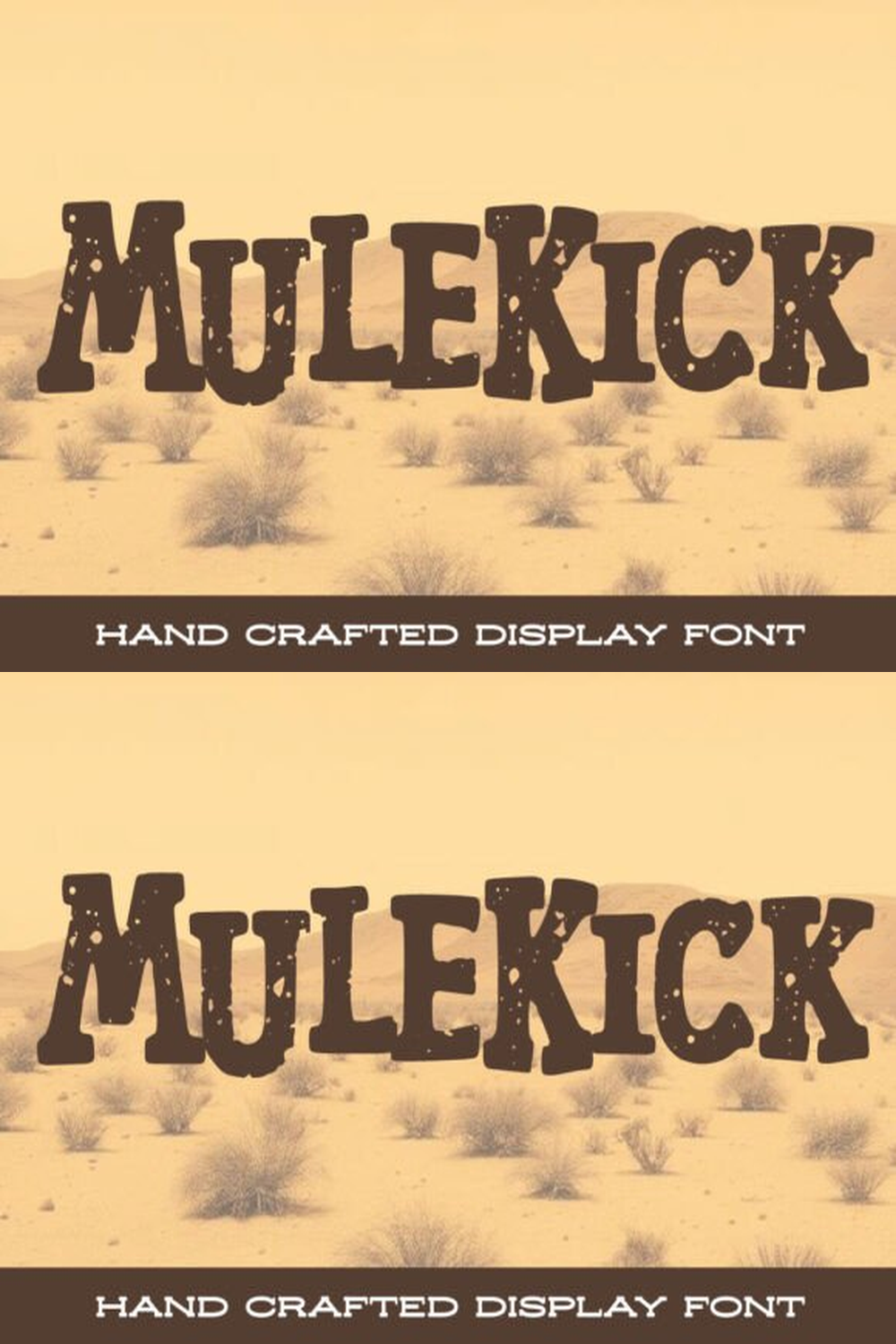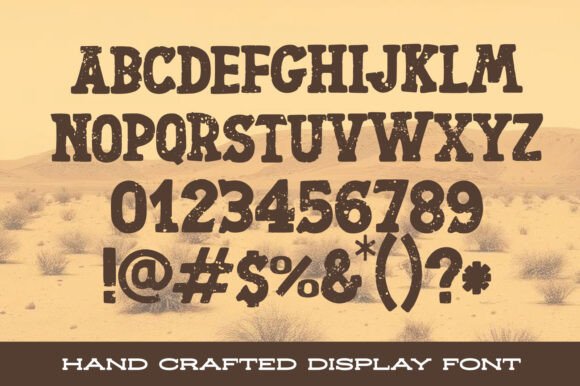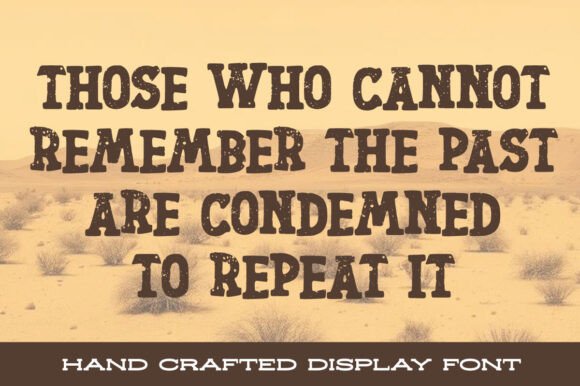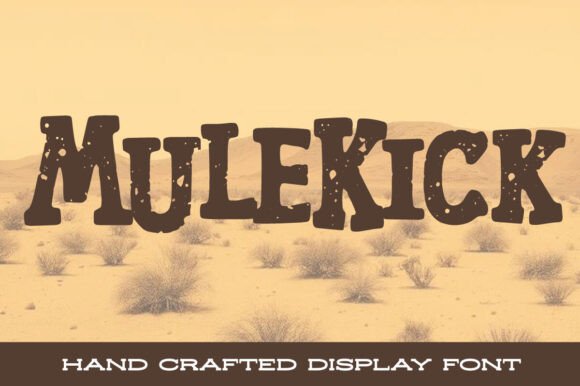
Mulekick Font: A Rugged, Bold Slab Serif for Vintage Logo Design
About the Mulekick Font
The Mulekick Font offers a perfect balance of form and function for your design needs. Mulekick is a bold, handmade slab serif font with a rough, weathered texture that feels tough, rugged, and full of attitude. Its thick, sturdy letterforms have slightly irregular edges, mimicking the look of old hand-painted signage, stamped lettering, or a well-worn cattle brand.
The serifs are chunky and pronounced, giving it a strong, no-nonsense presence, while the distressed details—like subtle cracks, rough patches, and ink bleeds—add a raw, authentic feel. The characters may lean slightly imperfect, as if carved into wood or printed on burlap sacks.